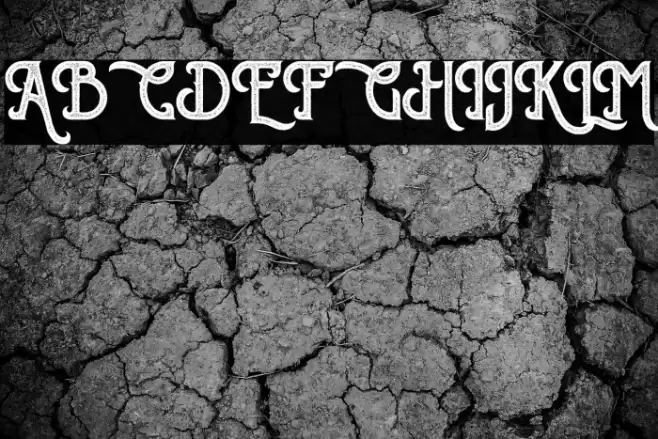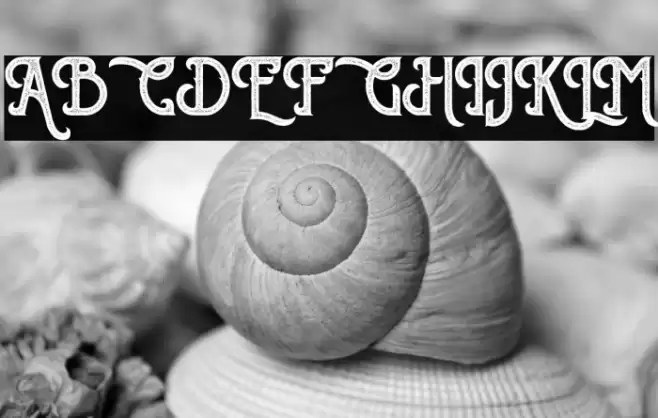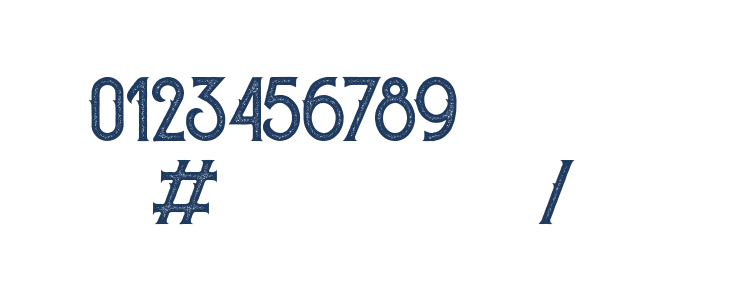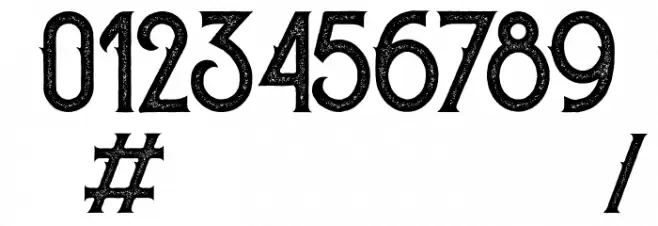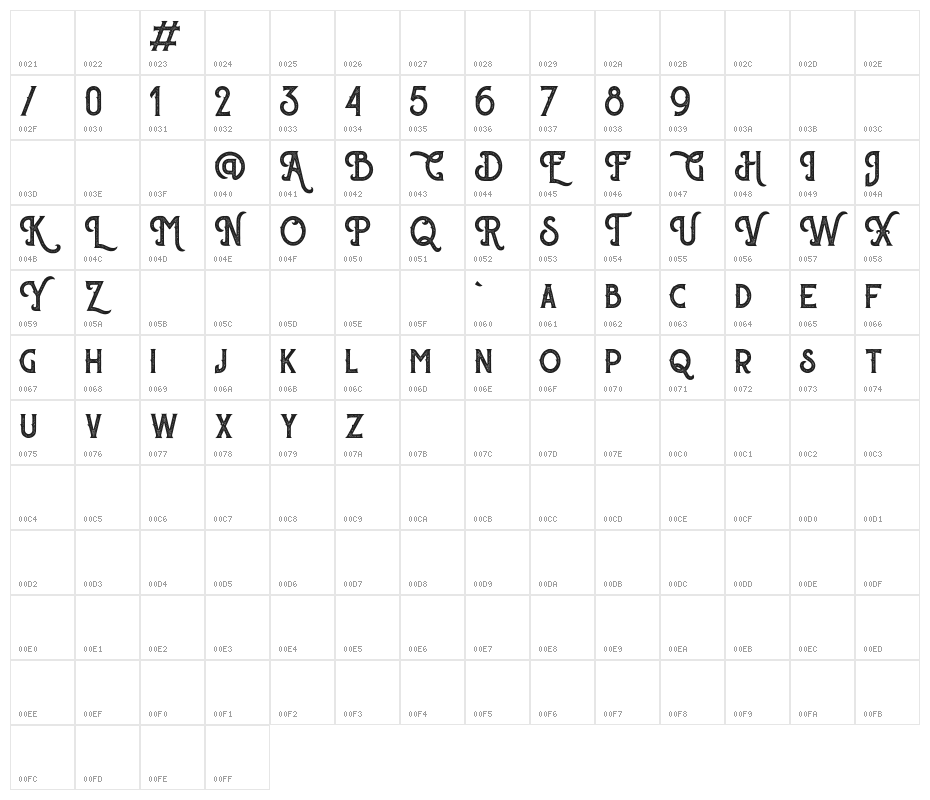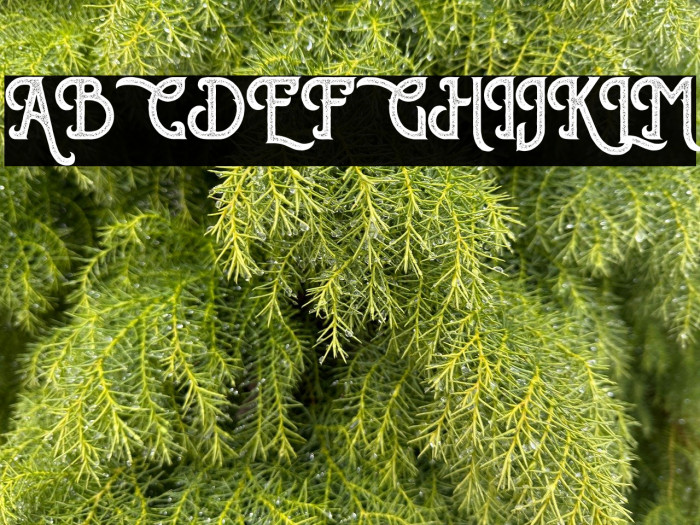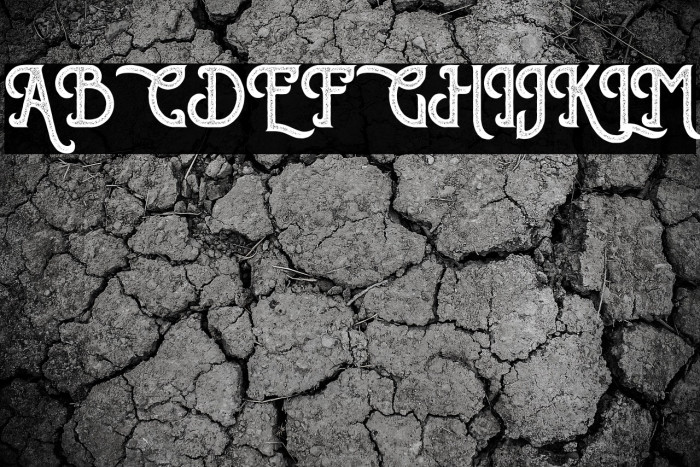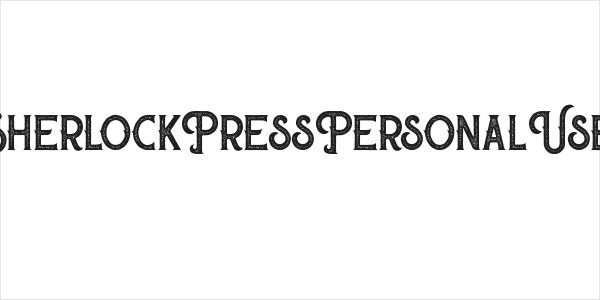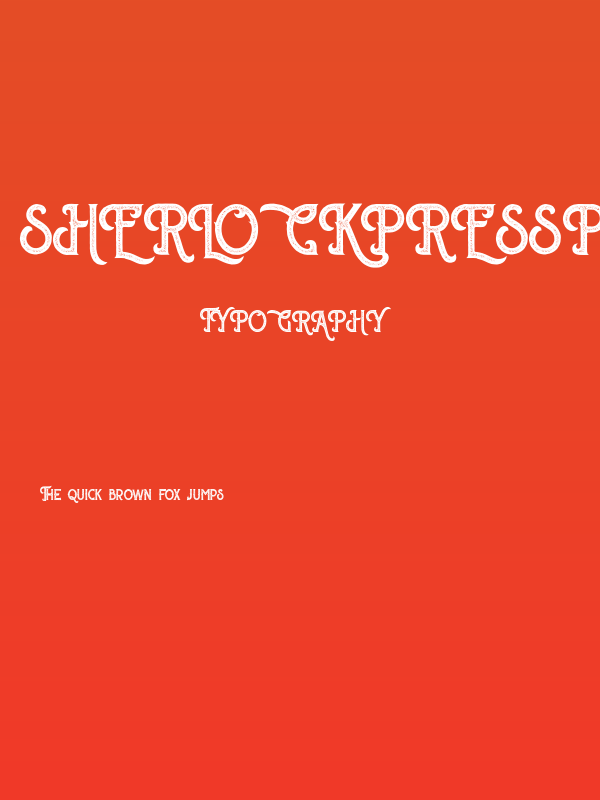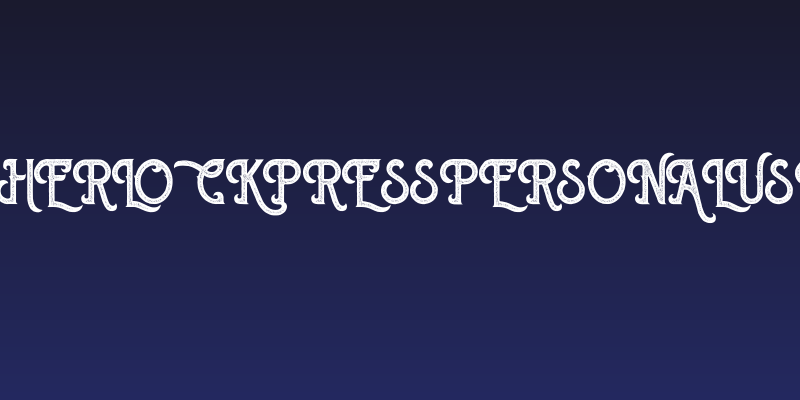
SherlockPressPersonalUse Font
SherlockPressPersonalUse Description
This font features a decorative and vintage style with intricate details and embellishments on each character. The uppercase letters have a bold presence with unique serifs and flourishes, giving it an ornate appearance. The lowercase letters maintain the decorative theme, complementing the uppercase with a consistent style. The numbers are equally stylized, ensuring a cohesive look across all characters. This font's textured appearance adds a sense of depth and character, making it stand out in any design. The special characters, including symbols like # and /, are designed to match the overall aesthetic, ensuring uniformity throughout.
A decorative, vintage-style font with intricate details and textured appearance from Uncategorized fonts.
- Proposed Projects: Ideal for vintage-themed posters, book covers, branding, and decorative invitations.
- Overall Style: Vintage, Decorative